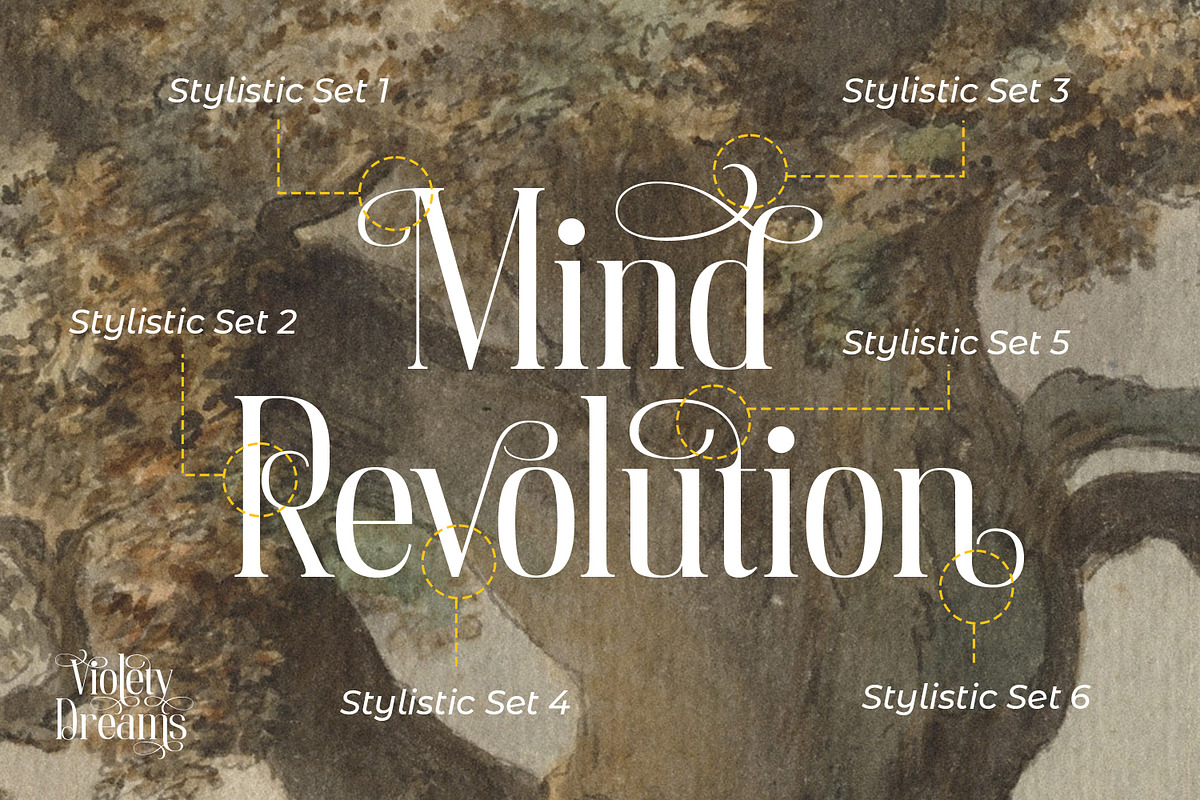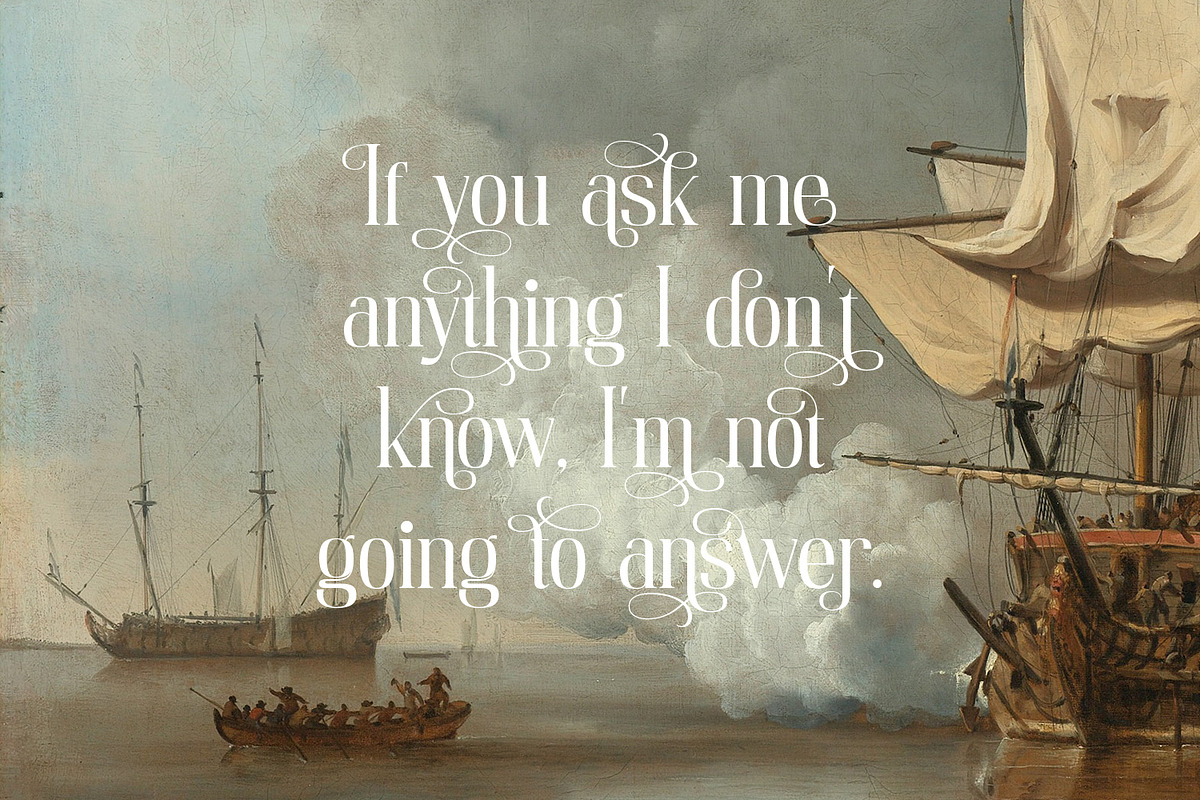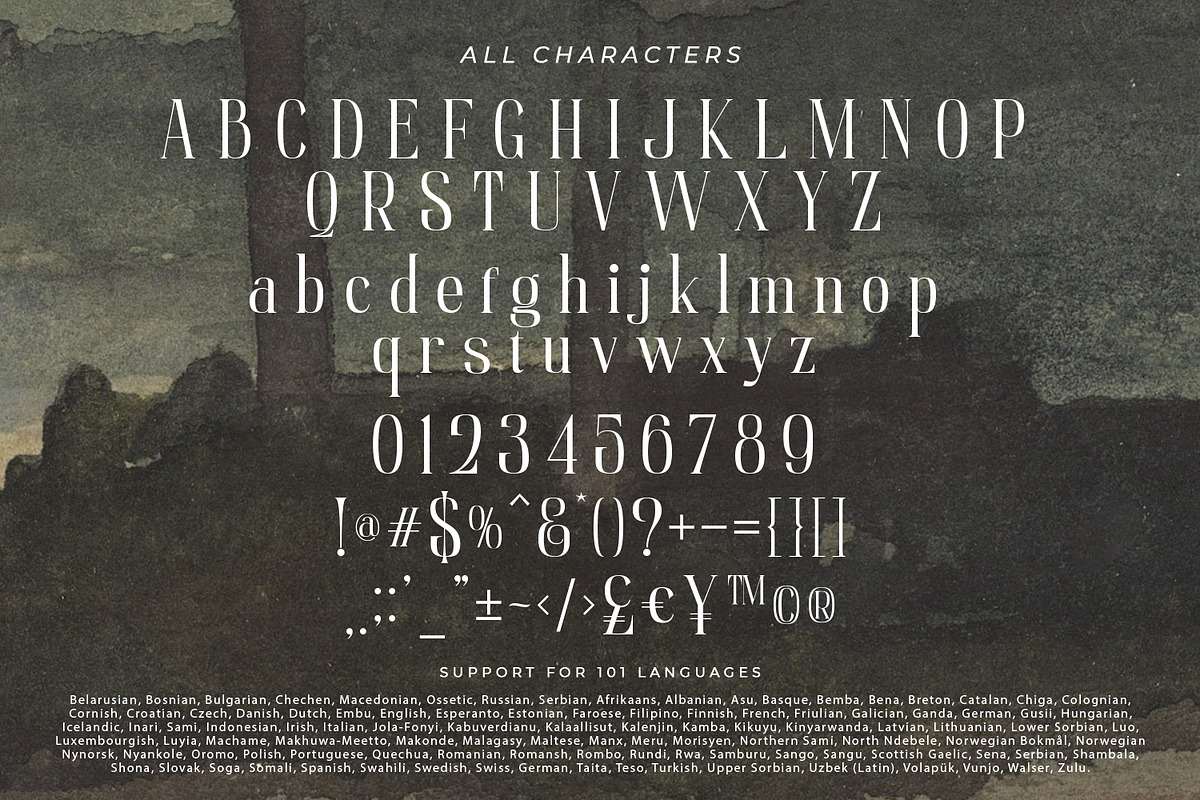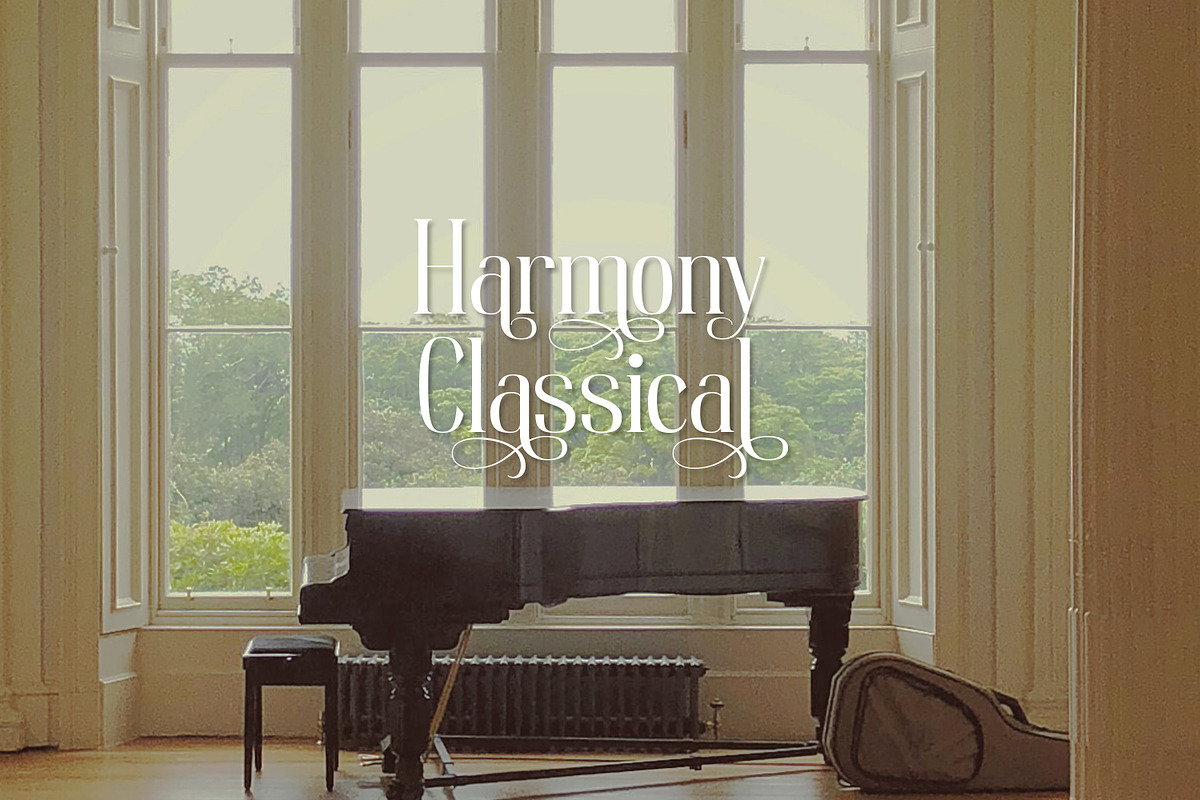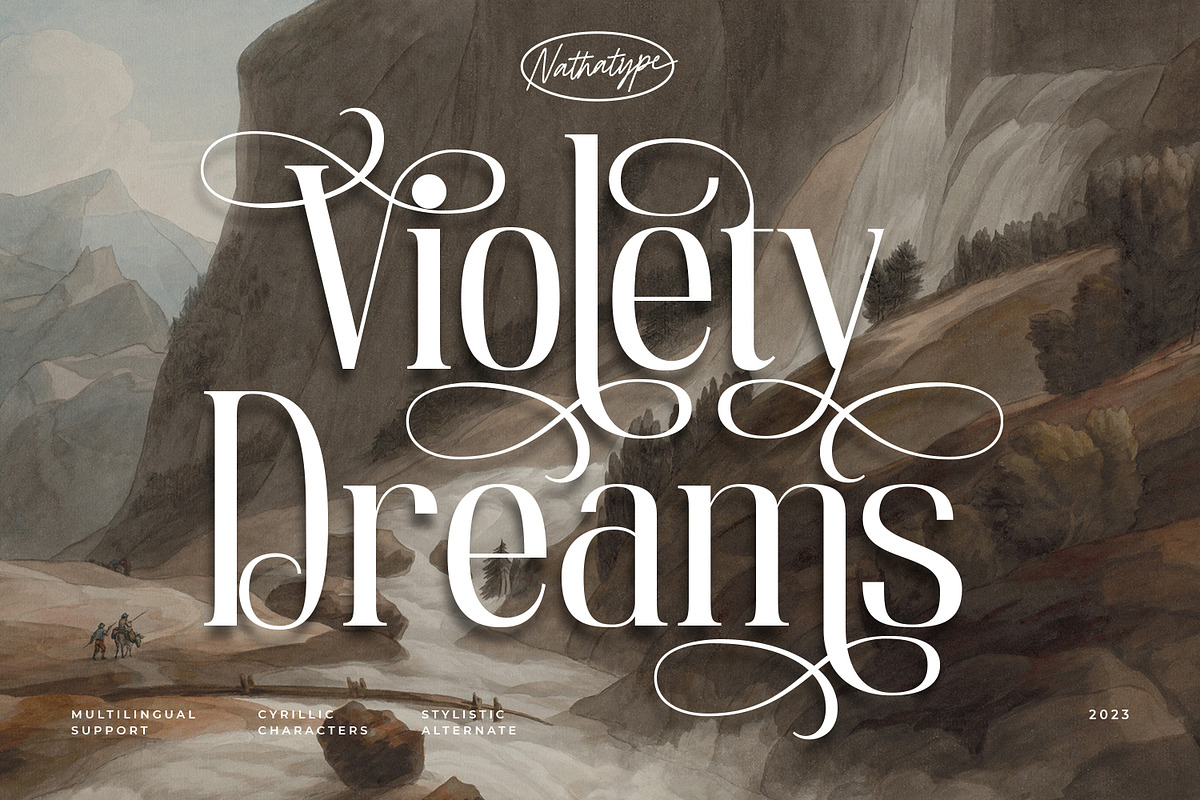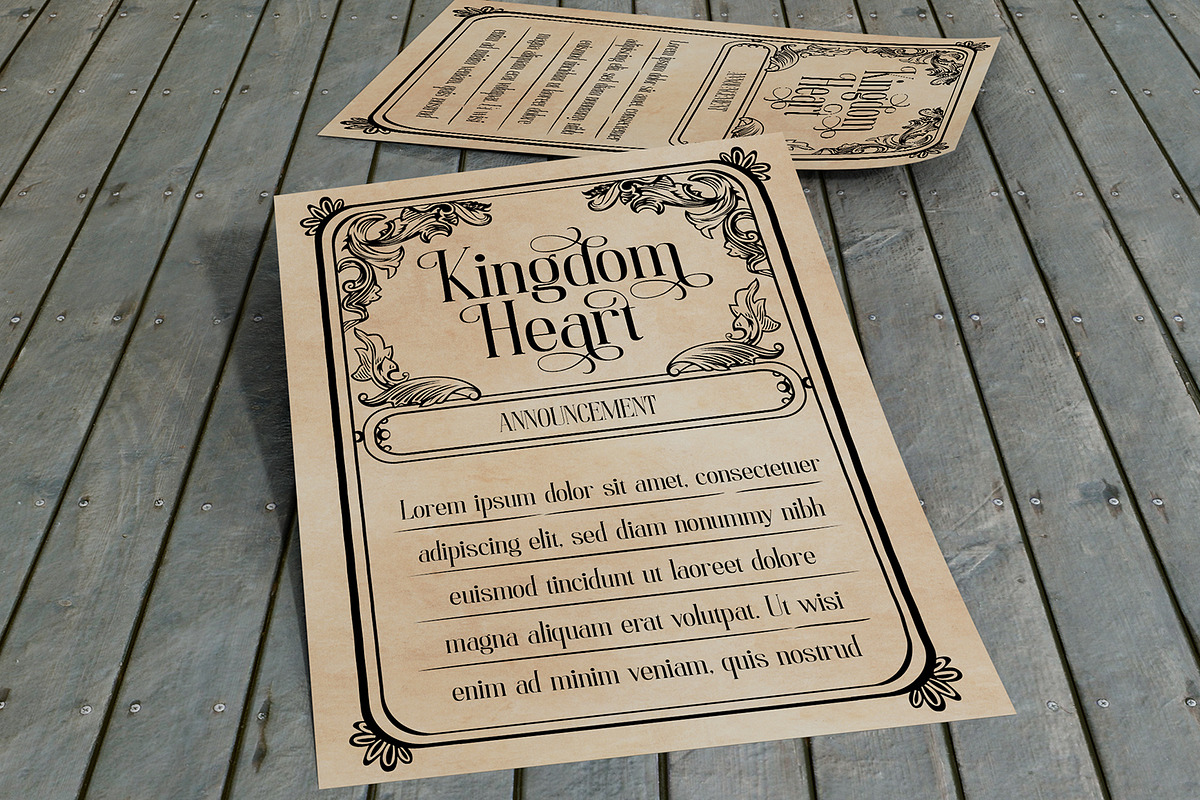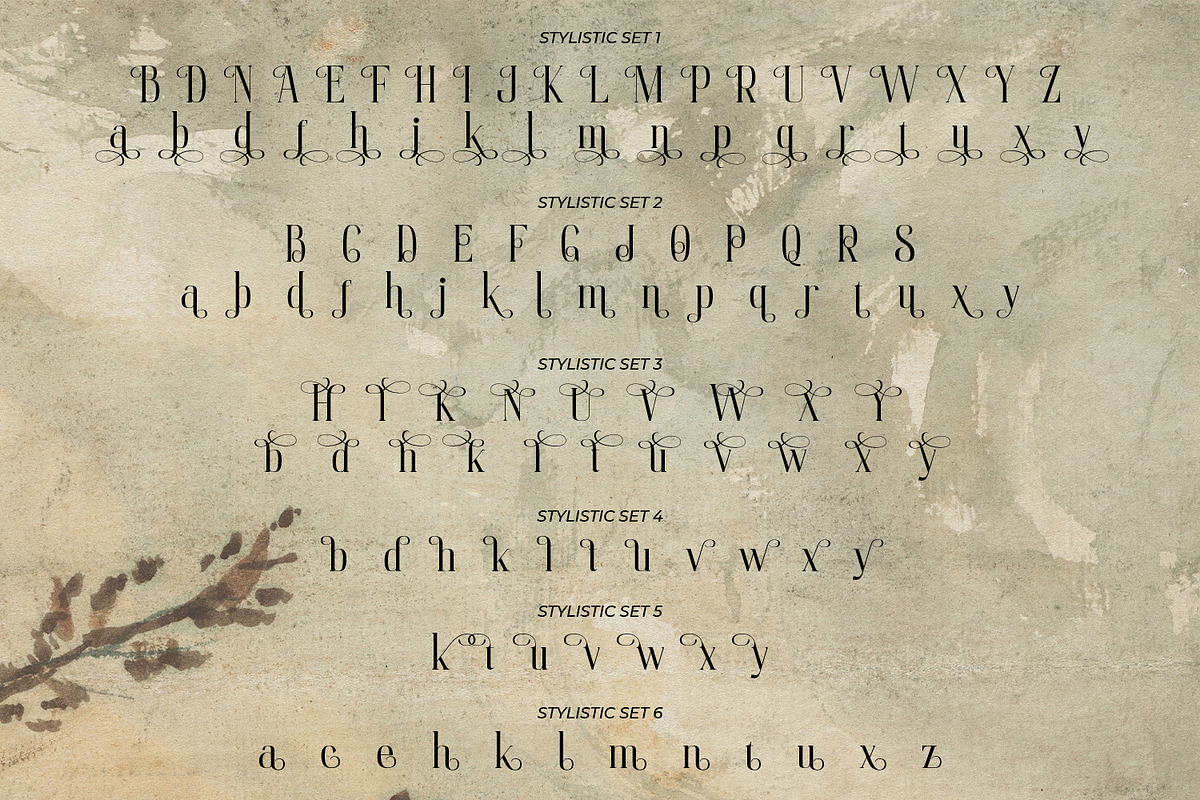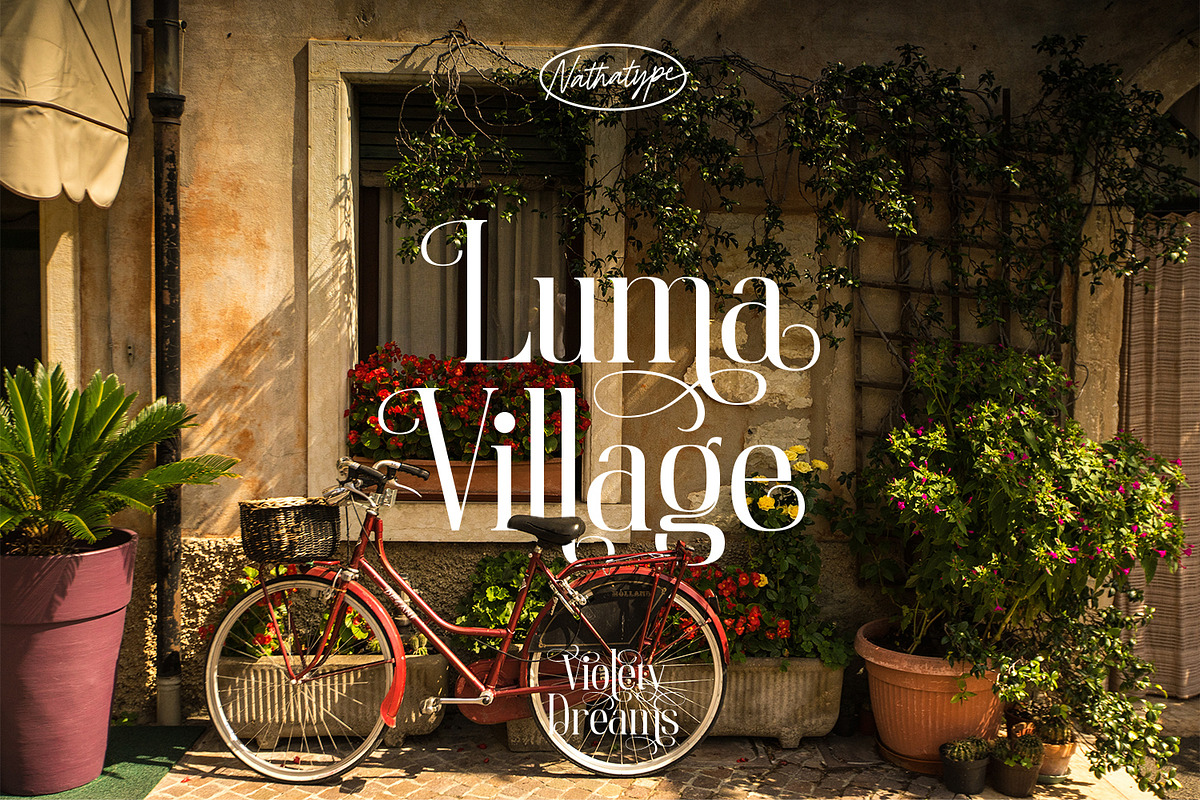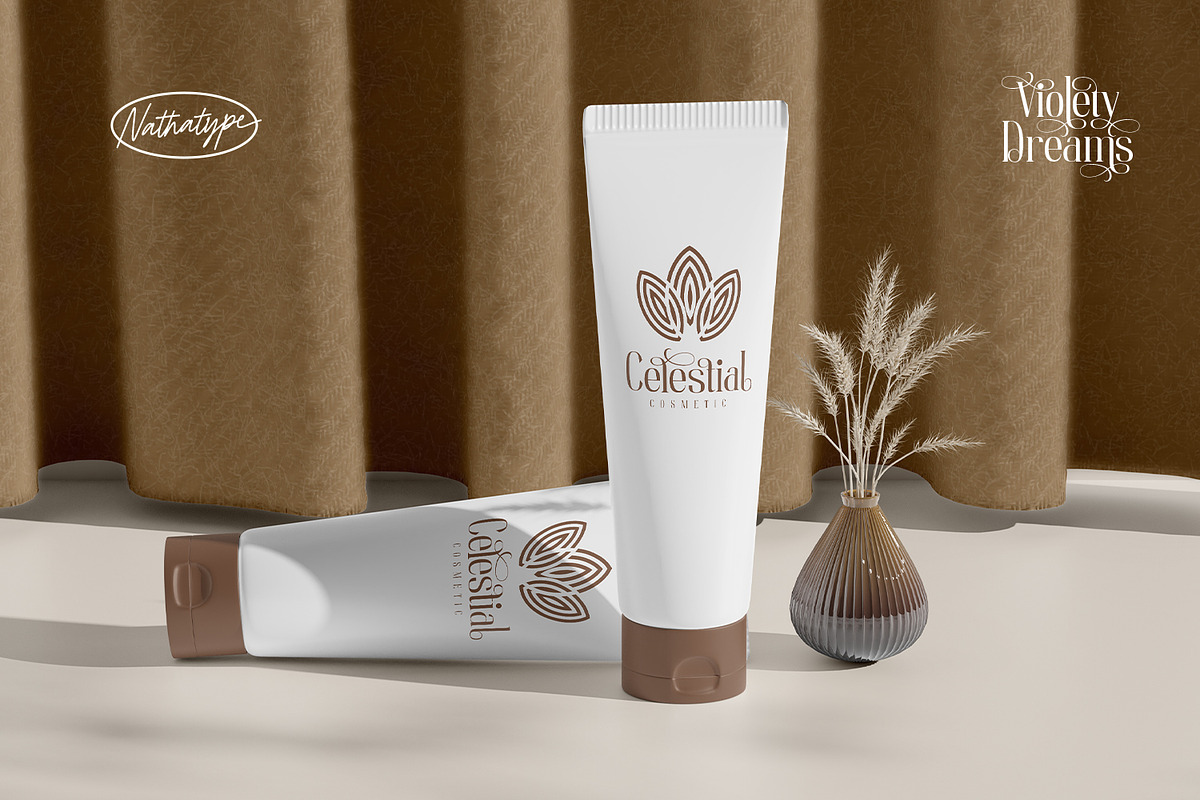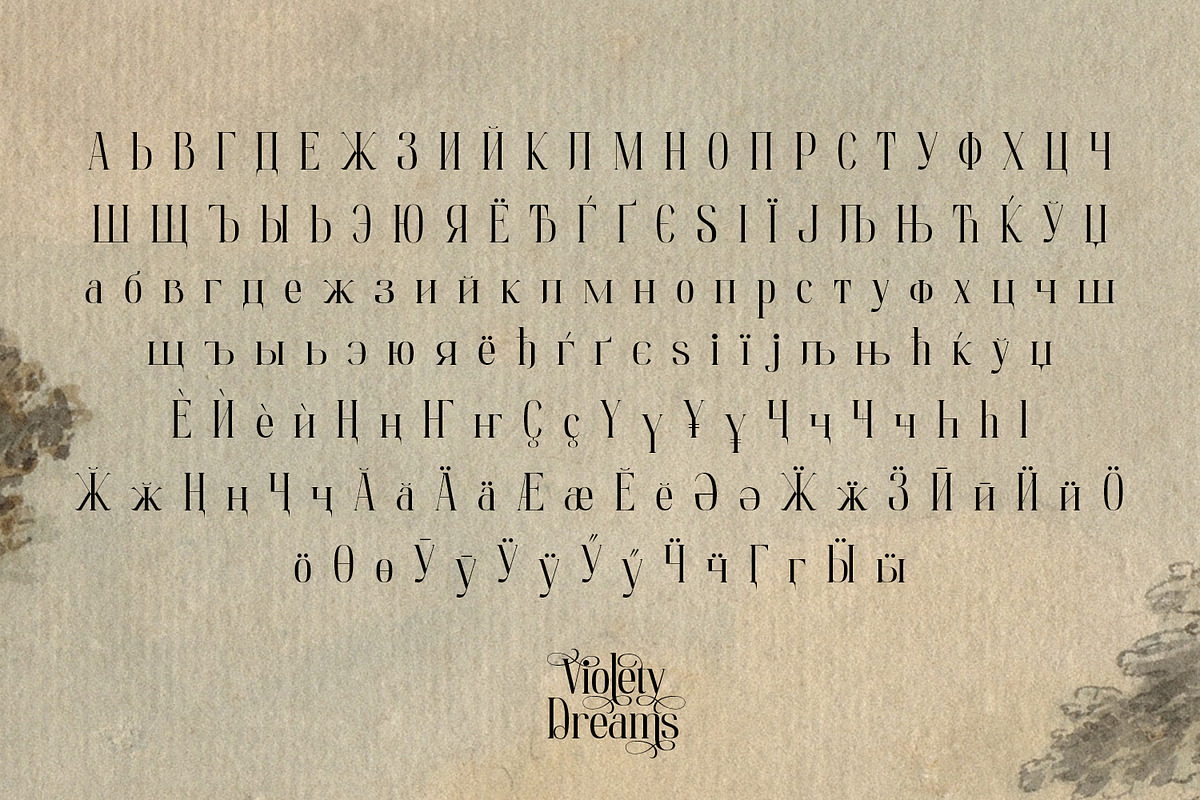
Violety Dreams
Violety Dreams is a serene and elegant serif font that will transport your designs to a realm of beauty and sophistication. This serif uniqueness in its graceful swinging strokes, which adorn certain letters, adding a touch of whimsy and charm. These elegant extensions create a sense of movement and fluidity. Inspired by the ethereal nature of dreams and the delicate beauty of violet flowers, Violety Dreams embodies a sense of tranquility and enchantment.
The serif letterforms are meticulously crafted to exude elegance and sophistication. This font strikes a perfect balance between classic charm and imaginative flair. The letterforms are designed with precision and clarity, ensuring legibility. Each letter retains its distinctive shape, while the swinging strokes create a visual interest and draw the eye. You can use it in big text sizes to be greatly legible and enjoy the available features here.
- Stylistic Sets
Violety Dreams is well-suited for headings, titles, invitations, wedding stationery, luxury branding, editorial layouts, branding materials, and any design project that calls for an elegant and dreamy typography. Find out more ways to use this font by taking a look at the font preview.